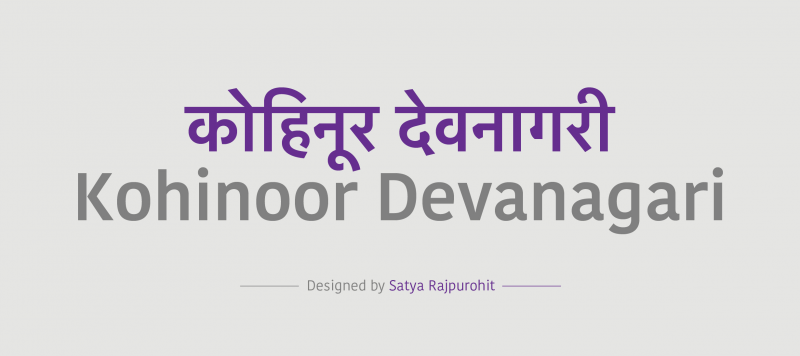
An elegant low contrast Devanagari typeface suitable for both body and display text. Part of the super family Kohinoor Multiscript. It comes in 5 upright styles and has full support for the conjuncts and ligatures.
| Family Name | Kohinoor Devanagari |
|---|---|
| Designer(s) | Satya Rajpurohit |
| Release Date | September 3, 2010 |
| Available Style | Light, Book, Demi, Medium, Bold |
| Classification | Sans, Display |
| Supported Languages | Hindi, Marathi, Sanskrit |